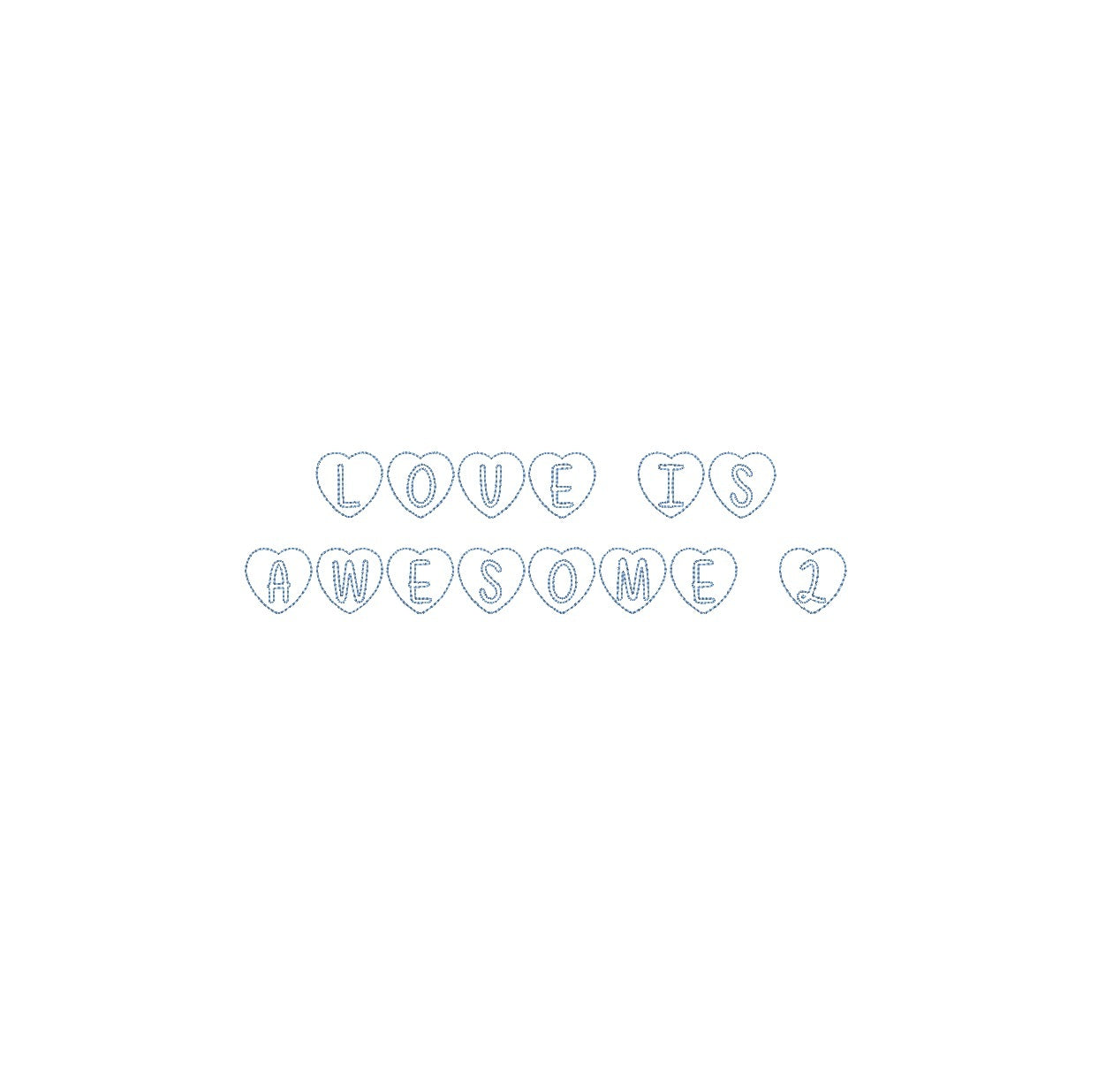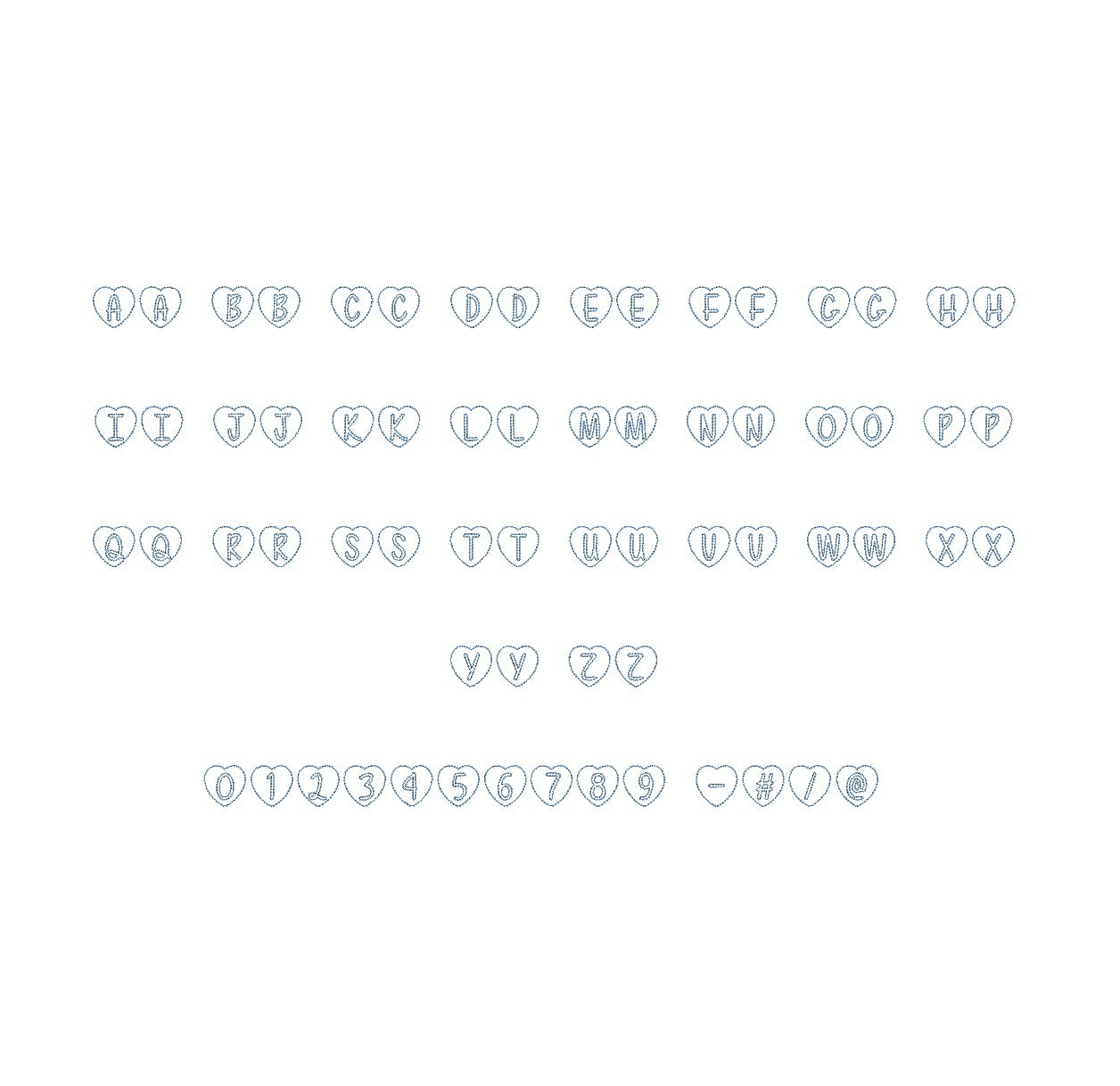
Elevate your creative projects with the Love is Awesome 2 Bean Outline ESA font. This font, fully compatible with Wilcom Studio e4.5.6 and Hatch 3 versions and up, adds a touch of charm and elegance to your designs. Its intricate bean outline style creates a visually captivating impact, making your work stand out. Seamlessly integrate this font into your design process with industry-leading software for flawless results. Choose Love is Awesome 2 Bean Outline ESA font to infuse your creations with a sense of love and uniqueness. Elevate your designs and leave a lasting impression with this exceptional font. Explore its creative potential today.